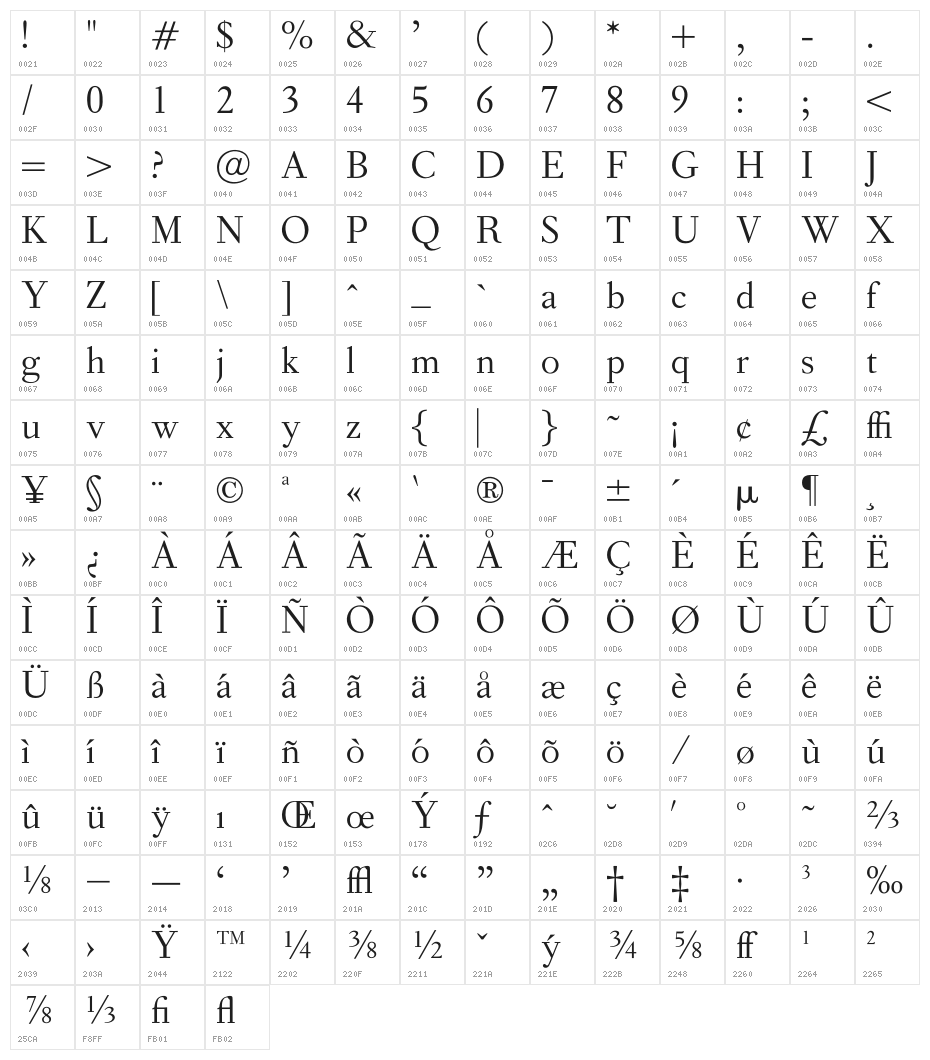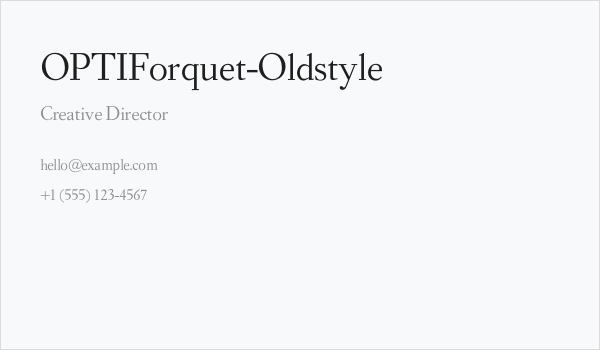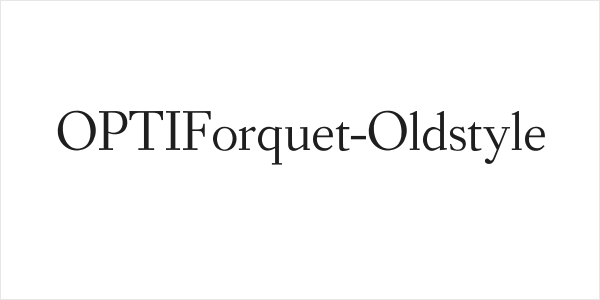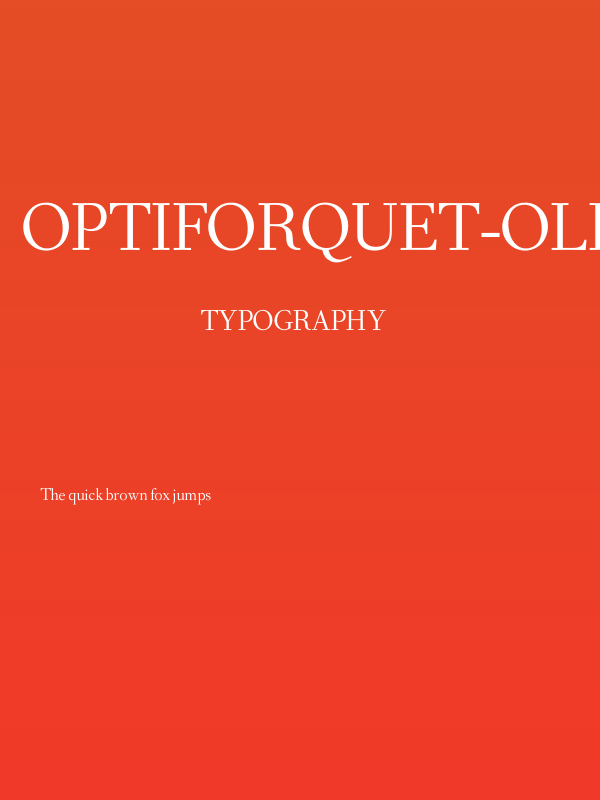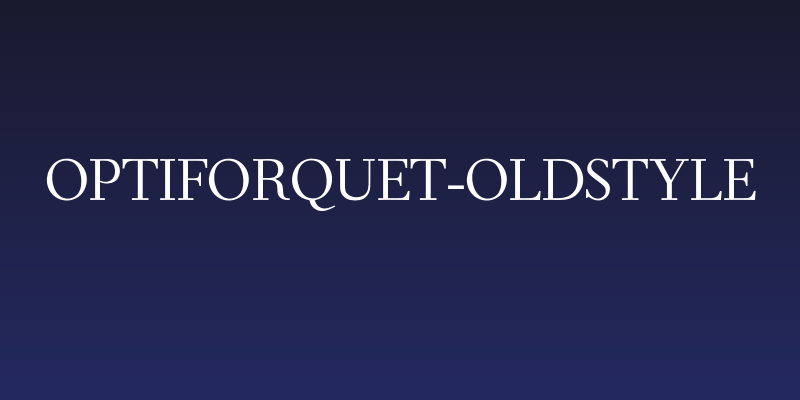
OPTIForquet-Oldstyle Font
OPTIForquet-Oldstyle Description
This font embodies a classic serif style with elegant and refined strokes. The uppercase letters are well-proportioned, featuring subtle serifs that add a touch of sophistication. The lowercase letters maintain a consistent style, with smooth curves and a balanced appearance. The numerals are clear and legible, complementing the overall aesthetic. Special characters are thoughtfully designed, ensuring versatility across various applications. The font's timeless appeal makes it suitable for a range of design projects, from editorial layouts to branding materials.
| Proposed Projects | Ideal for editorial design, branding, book covers, and formal invitations. |